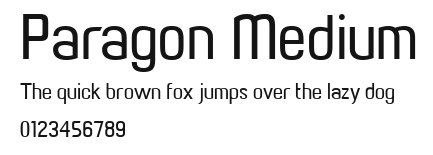
• Font Name: Paragon Medium
• Full Font Name: Paragon Medium
• Designer: Tino Mendes
• Manufacturer: Tino Mendes
About Paragon Medium.ttf
Paragon Medium.ttf is a modern, elegant sans-serif font designed for ultimate readability and visual harmony. Perfect for branding, headlines, web design, and print materials.